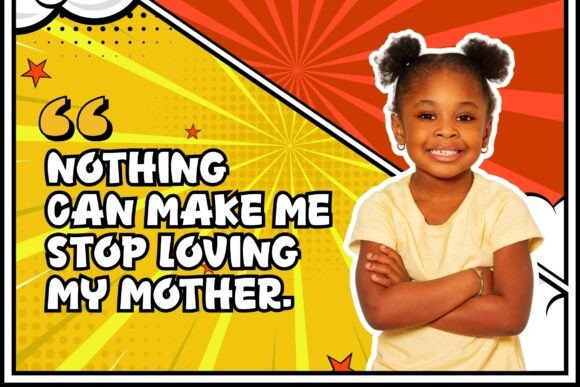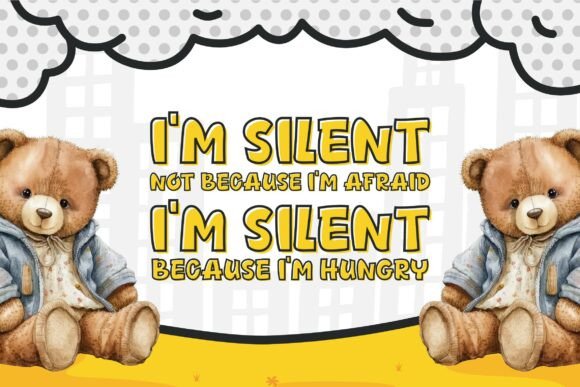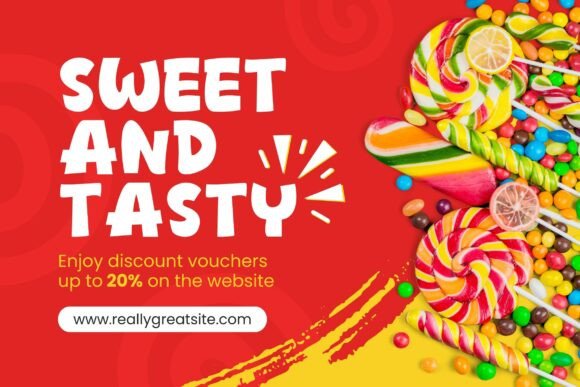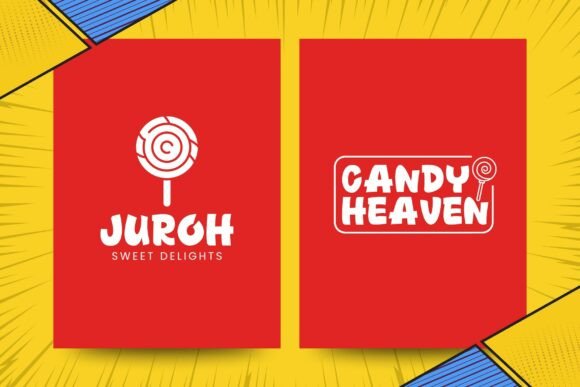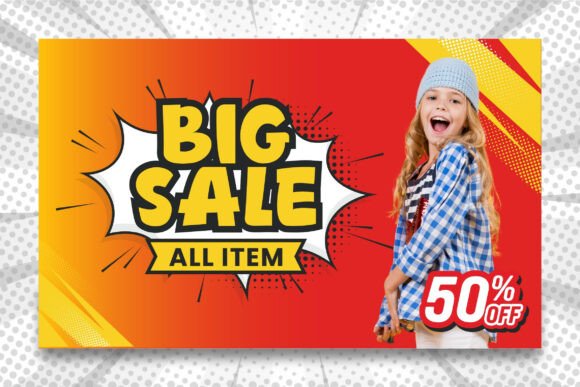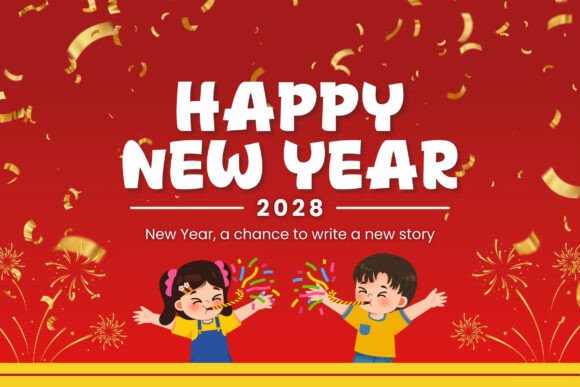
Introduction to Cute Juroh Font
Have you ever stared at a blank canvas, eager to bring a creative project to life, but struggling to find the perfect font to convey your message? I know I have. That’s when I discovered the magic of Cute Juroh Font – a bold and expressive comic-style display font that instantly grabs attention and brings designs to life. Its chunky shapes, dynamic curves, and strong personality make it the perfect design resource for designers who want to add a fun, energetic, and playful touch to their work.
Whether you’re working on a high-quality kids illustration or creating a fun brand identity, Cute Juroh Font is the perfect companion. With its transparent background and free download option, it’s an accessible and versatile design tool that can elevate your creative project to new heights. In this article, we’ll dive deeper into the world of Cute Juroh Font and explore its endless possibilities.
Key Features of Cute Juroh Font
- Unique Hand-Drawn Design: Cute Juroh Font features a high-quality, hand-drawn design perfect for creative projects requiring a touch of whimsy.
- Perfect for Illustrations and Graphics: The Cute Juroh Font is designed to work seamlessly with illustrations and graphics, making it an excellent choice for creative projects.
Honest Review: Cute Juroh Font
As a designer, I’ve had my fair share of fonts, but the Cute Juroh Font caught my attention with its unique charm. I was excited to dive in and see if it lived up to its cute name.
- High-quality design: The font is well-crafted, with clean lines and a delicate touch that’s perfect for creative projects.
- ⚠️ Limited character set: The font doesn’t have a comprehensive character set, which might be a drawback for designers working on projects that require a wide range of characters.
- ⚠️ Not suitable for large-scale text: While it’s perfect for headings or small text, the font might not be the best choice for large-scale text due to its delicate nature.
Overall, I’d say the Cute Juroh Font is a great addition to any designer’s toolkit, especially for creative projects where a touch of whimsy is needed. Its high-quality design, transparent background, and free download make it a valuable resource. However, its limitations should be considered when deciding whether to use it for specific projects.
When using Cute Juroh Font, consider using a transparent background to give your design a clean and minimalist look. You can also experiment with different font sizes and styles to add visual interest to your design.
Cute Juroh Font is a versatile design resource that can be used in a variety of creative projects, including logos, social media graphics, and web design. It’s also a great choice for creating high-quality print materials, such as business cards and brochures.